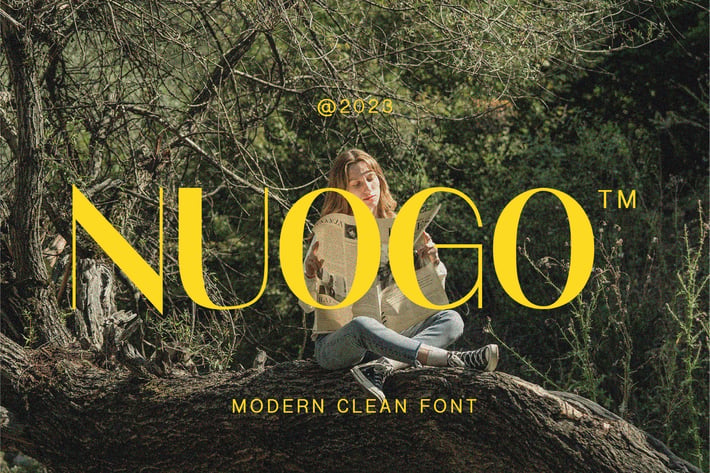
Nuogo Modern Font
Nuogo | Modern San Serif Font
With the font "Nuogo," you will bring a touch of elegance and luxury to any of your design projects. This font is specially designed to meet the needs of designers looking for an elegant handwriting style with a modern touch.
You can present an impression of unrivaled luxury in each of your design creations. Add a touch of elegance to your projects and create unforgettable masterpieces with this font. Get "Adevia" now and explore your creativity with more style.